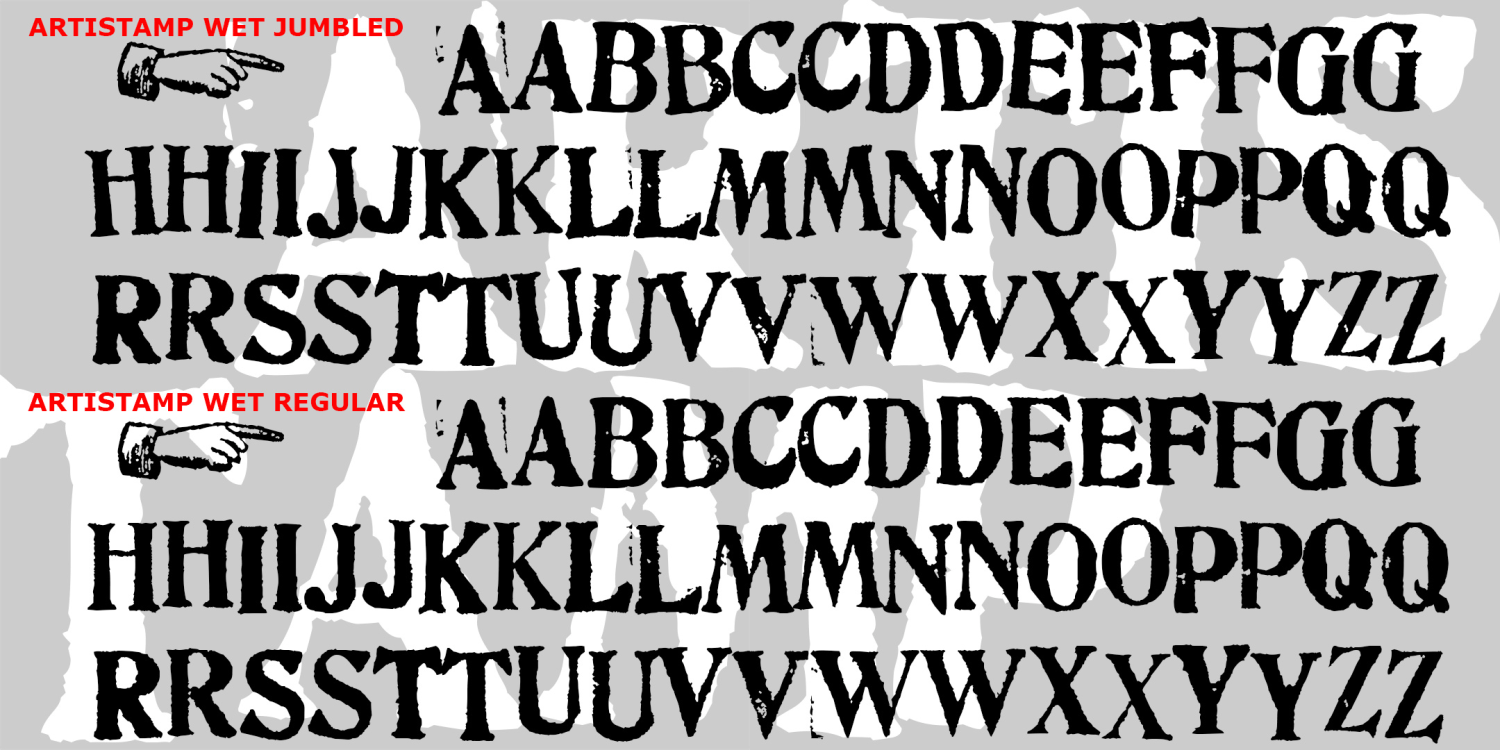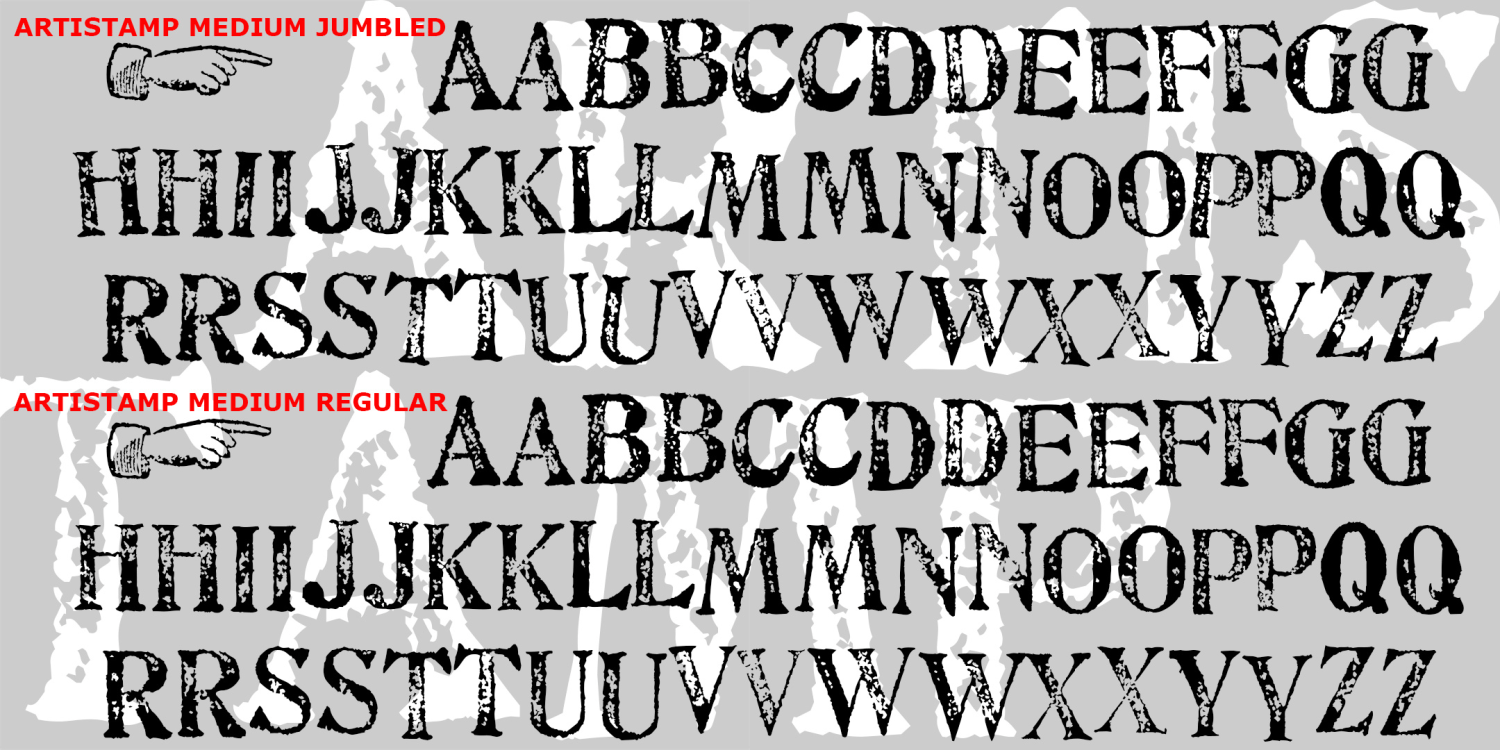
Artistamp
About Artistamp
The ARTISTAMP fonts began with scans of vintage rubber stamps I had long admired. There are two of each letter, in upper- and lowercase positions, to allow a more random feel. "Wet" means it looks like there was a lot of ink on the stamp pad,…